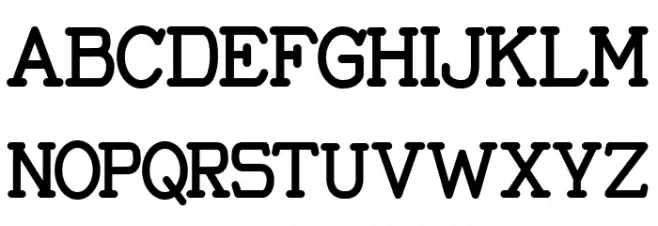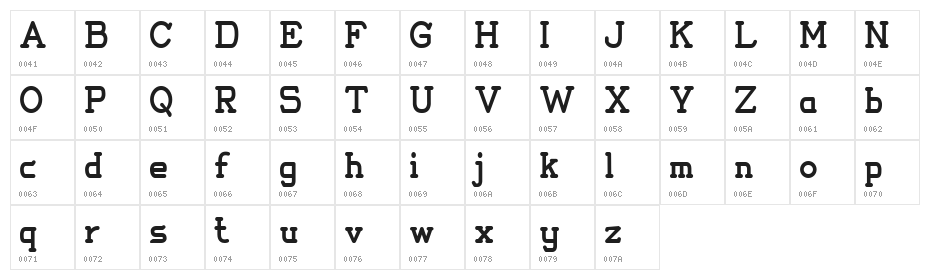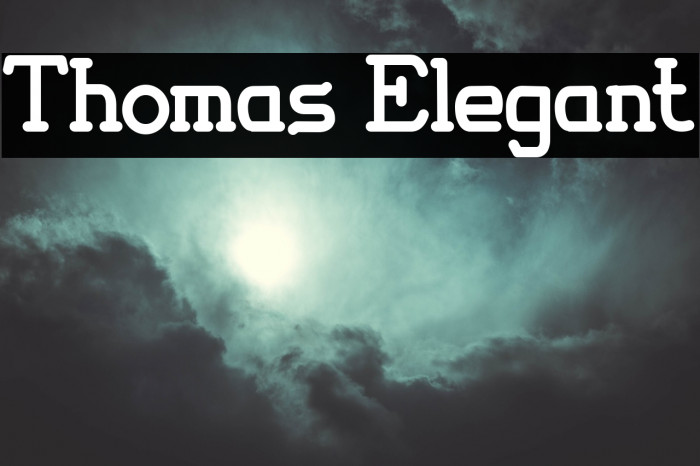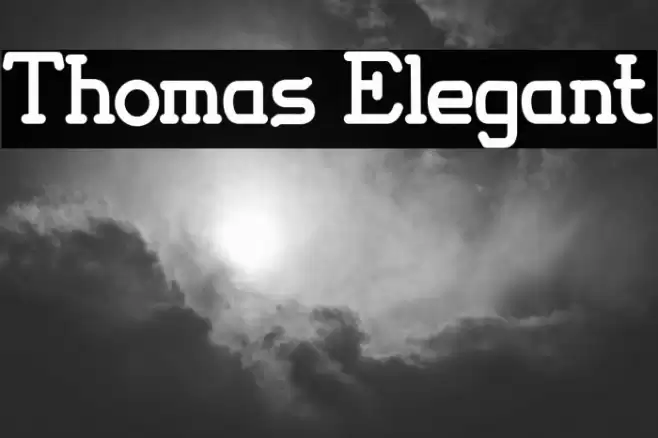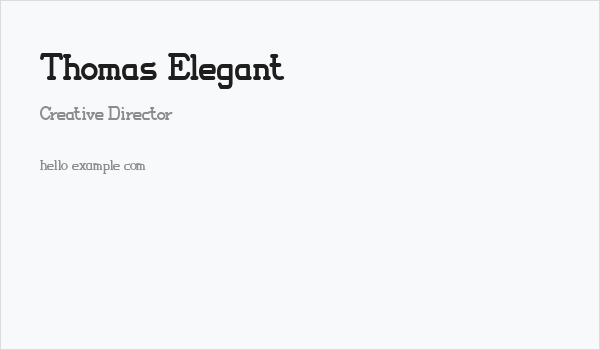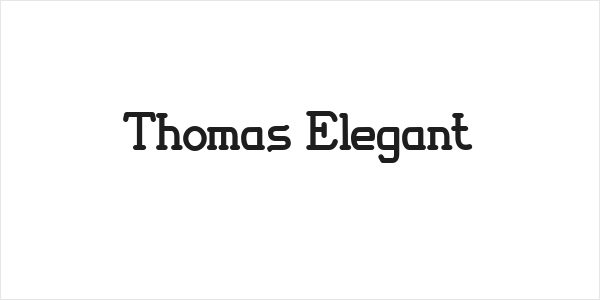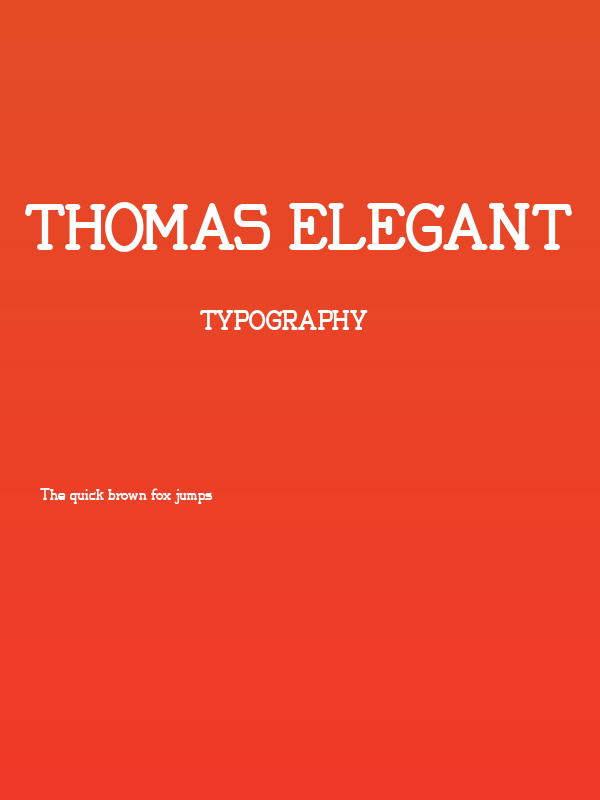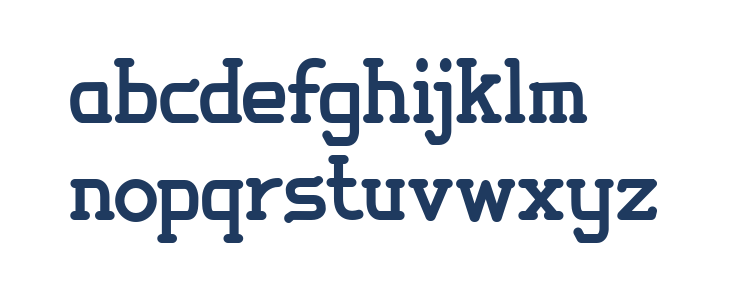
Thomas Elegant Font
Thomas Elegant Description
This font features a unique blend of modern and vintage elements, characterized by its bold, slab serif style. The letters are well-defined with a consistent stroke width, providing a strong and sturdy appearance. The serifs are prominent and slightly rounded, adding a touch of elegance and softness to the overall design. The uppercase and lowercase letters maintain a uniform height, ensuring readability and balance. The font's structure is clean and geometric, making it suitable for various design applications. Its distinct style makes it stand out, while still being versatile enough for both formal and casual contexts.
| Overall Style | Modern, Vintage |
| Proposed Projects | Ideal for branding, headlines, posters, and packaging design. |